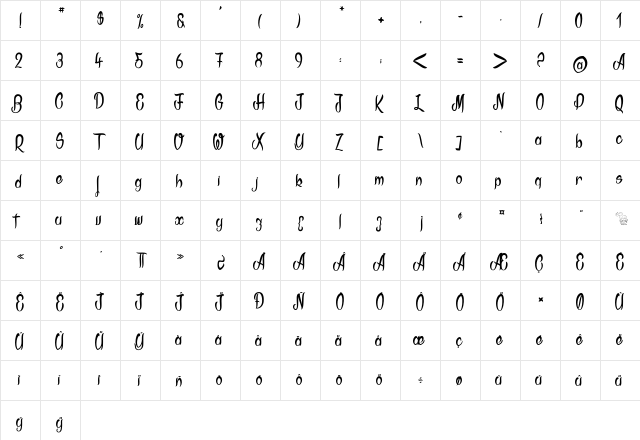
Akodia Regular
Design Context for Akodia Typeface
Akodia is a composed and adaptable typeface that performs quietly and consistently across a wide range of design contexts.